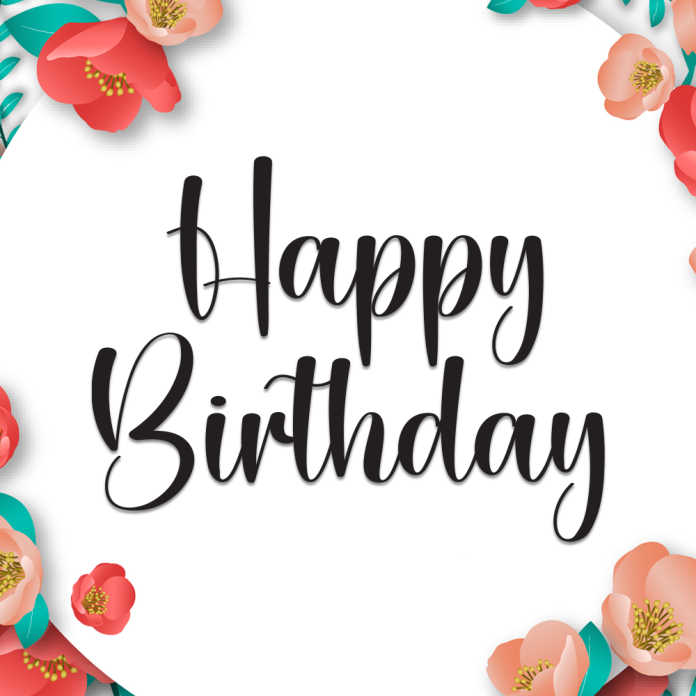
Happy Birthday is a cheerful and lively handwriting font that captures the spirit of celebration and fun. Its playful curves and informal strokes resemble festive lettering on a birthday card or party invitation.
Perfect for greeting cards, invitations, kids’ projects, party decor, and anything that needs a warm, handwritten touch.
Casual and joyful handwritten style
Friendly and approachable letterforms
Ideal for celebratory or child-friendly themes
Celebrate every design with the fun and vibrant charm of Happy Birthday.